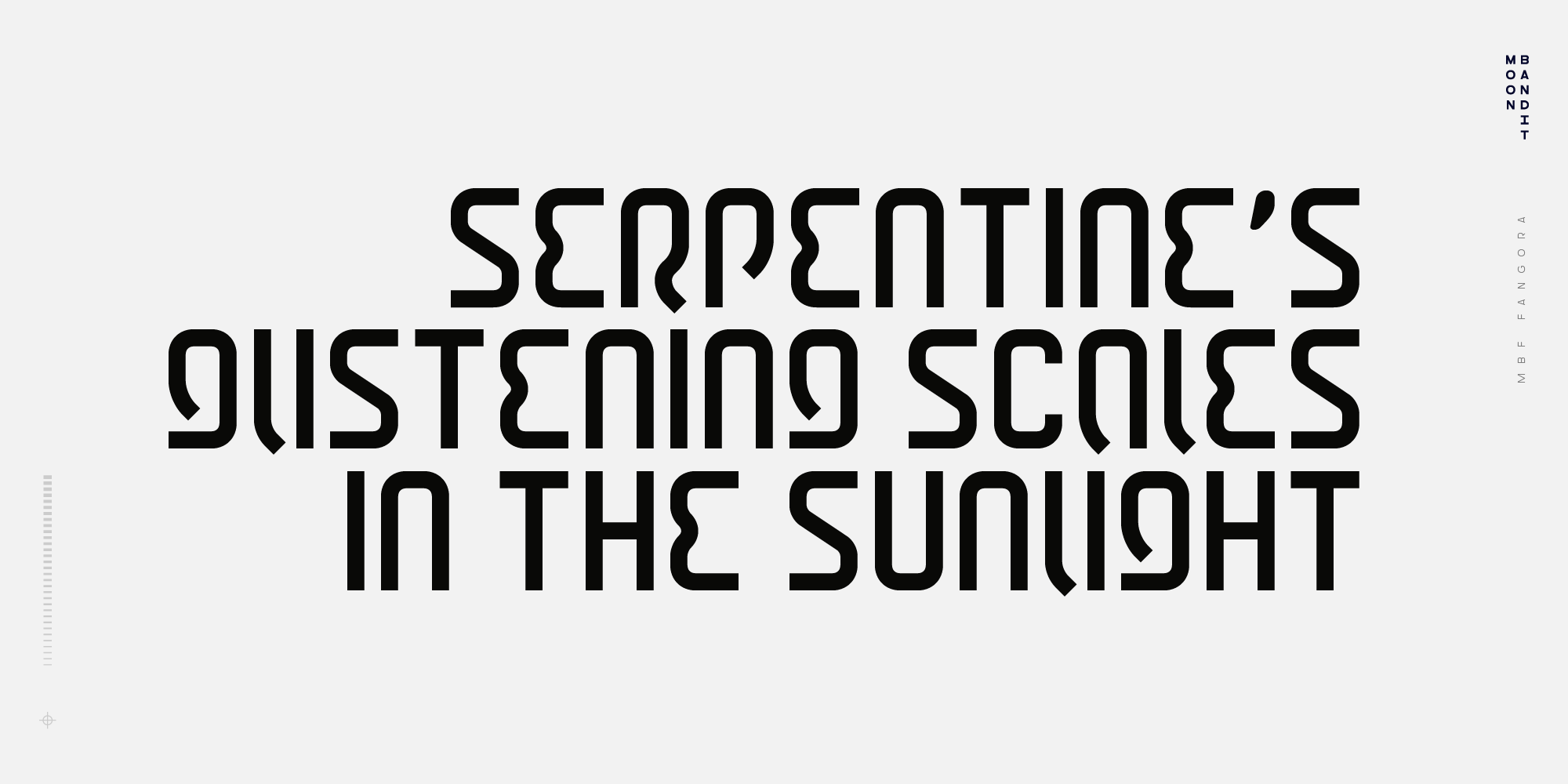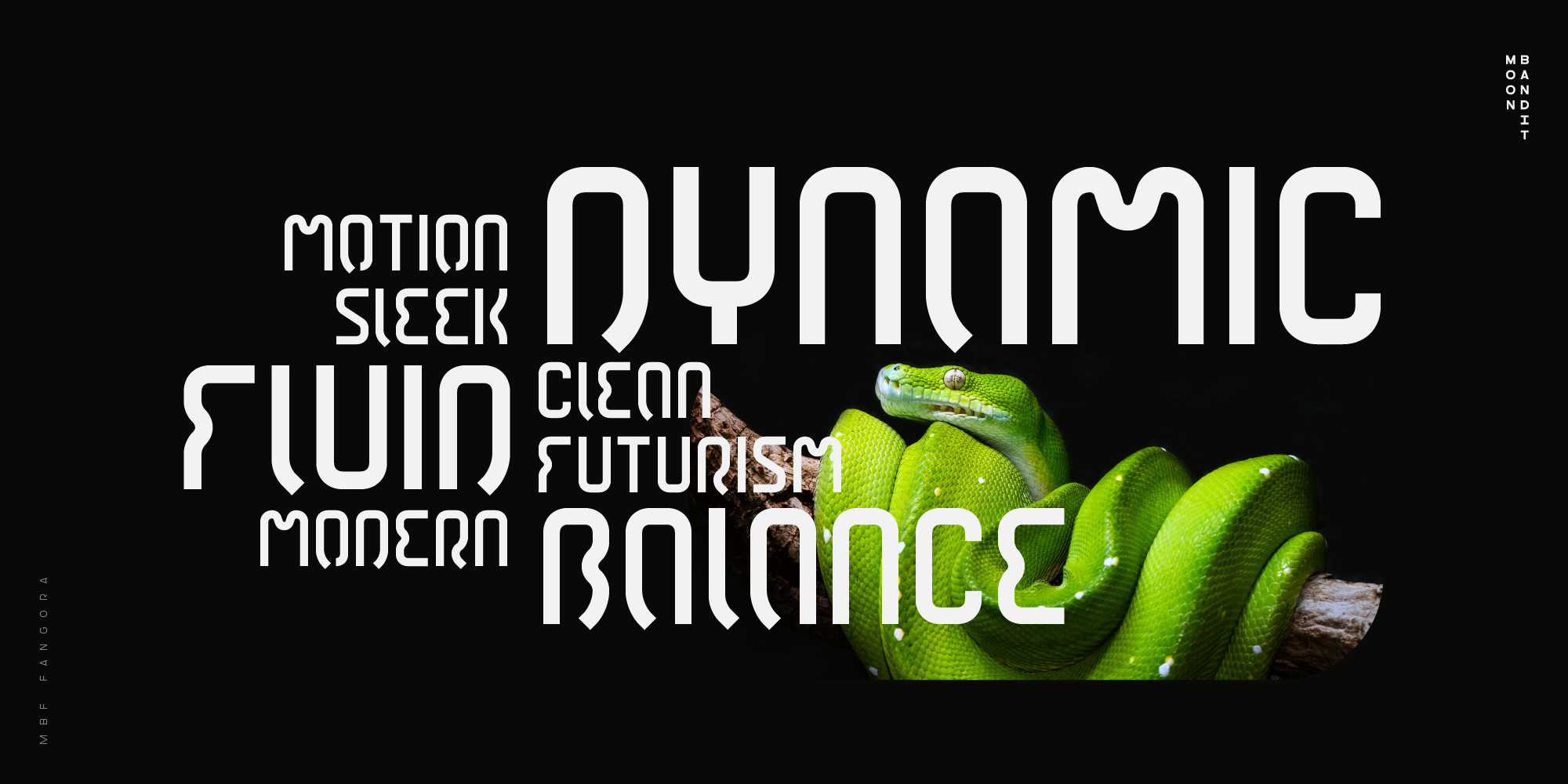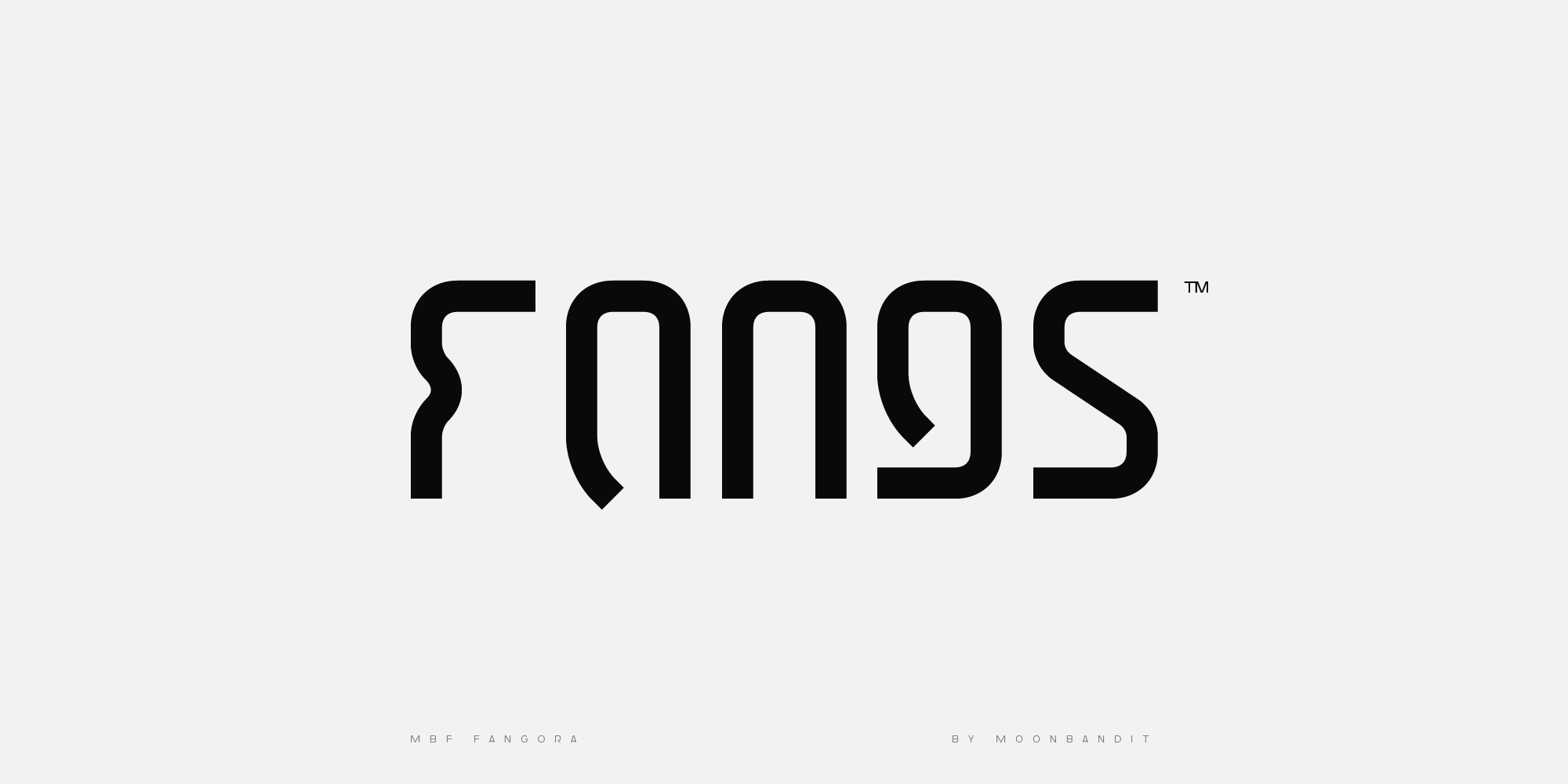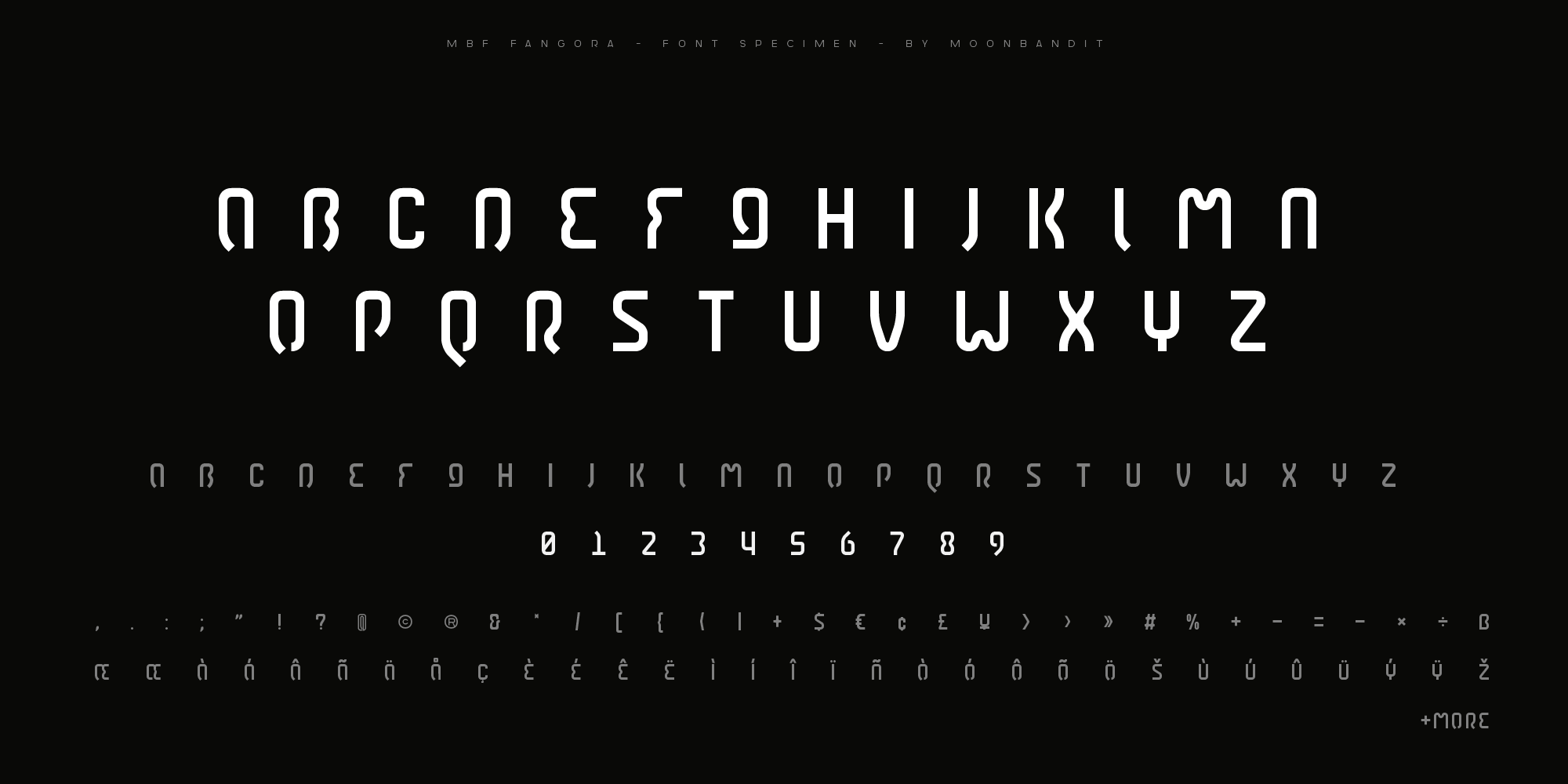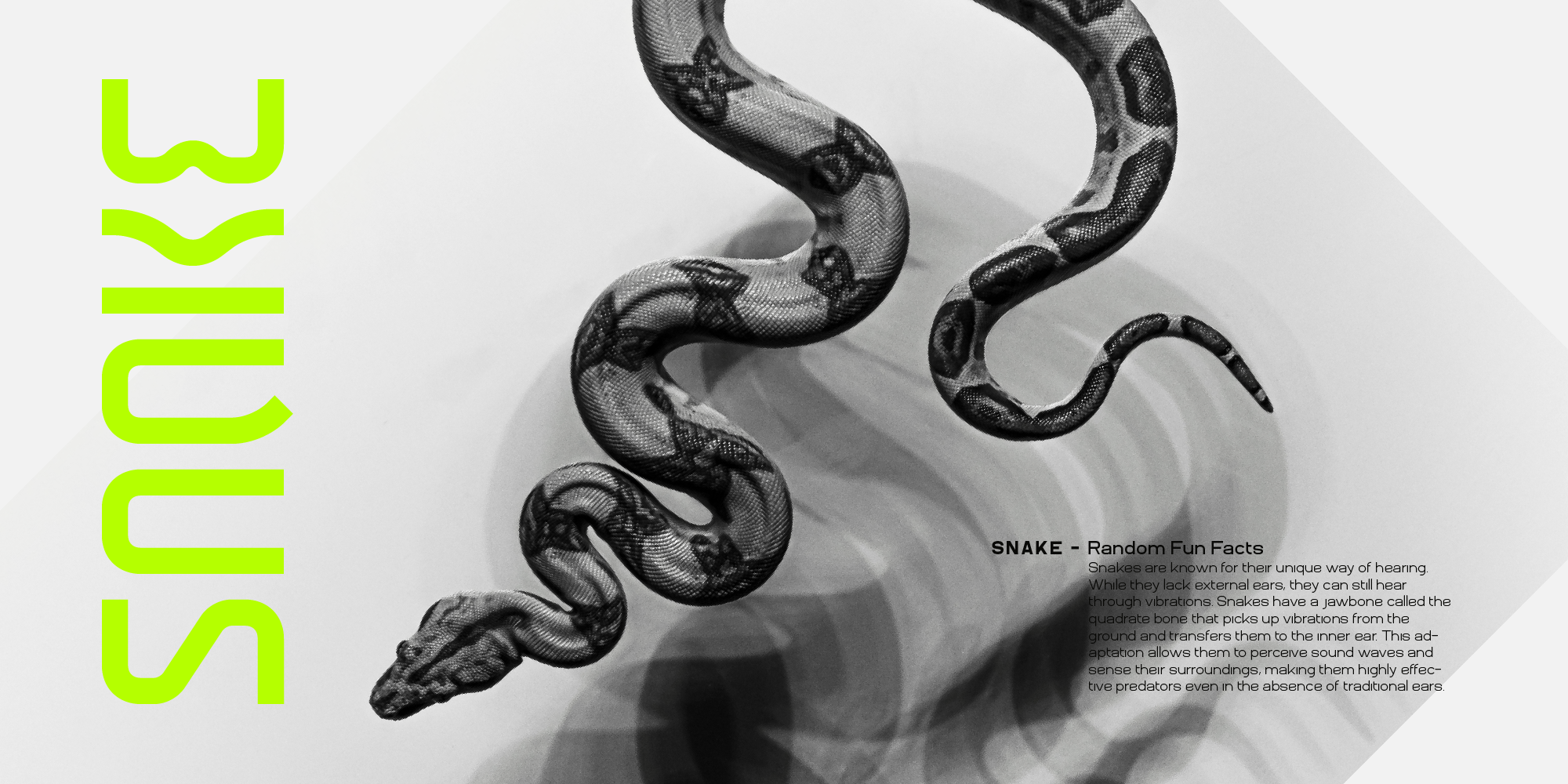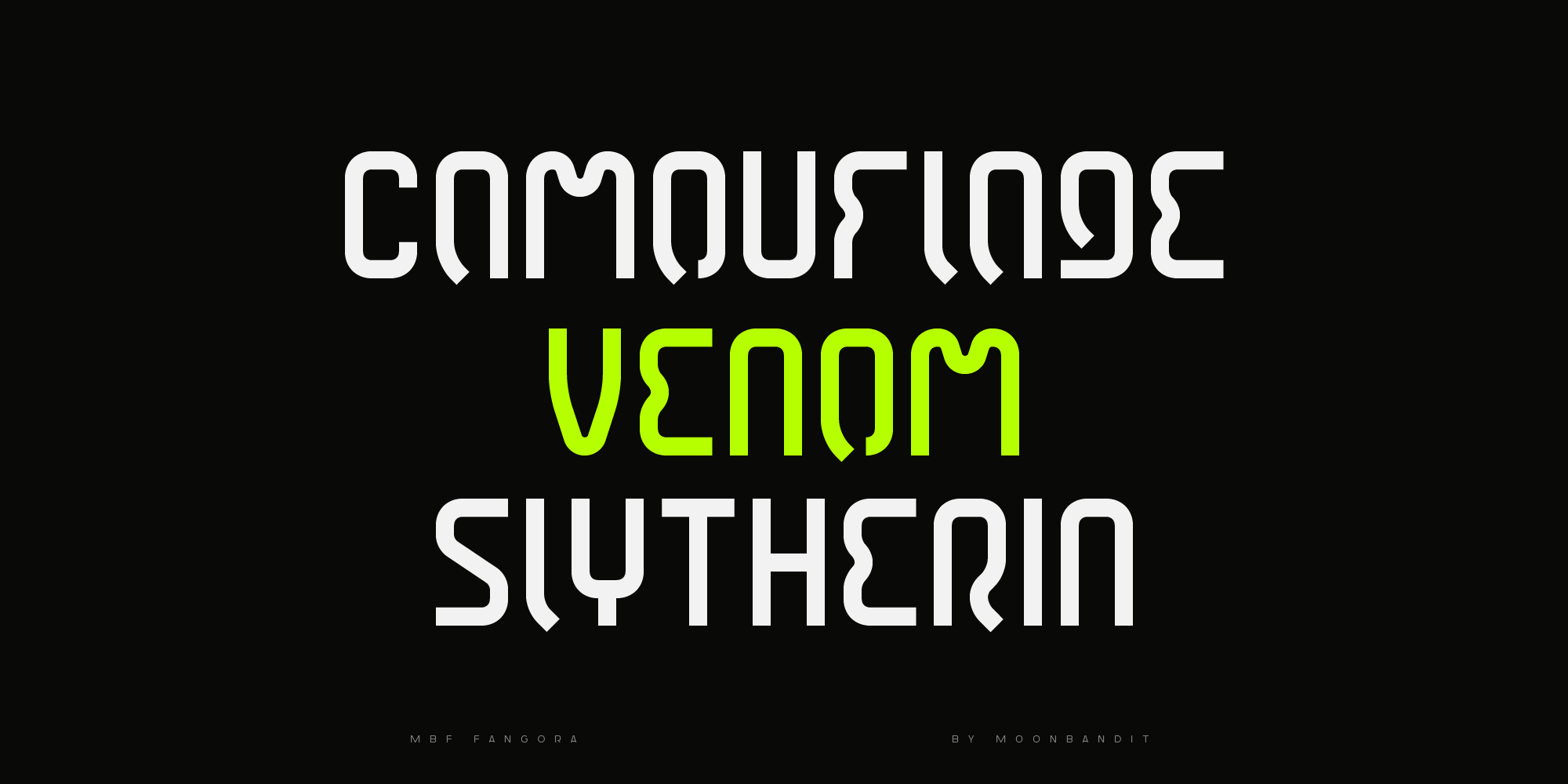
MBF Fangora
VENOMOUS SUBSTANCE OFTEN COMES FROM A BRIGHT COLORED BEING
Inspired by the dynamic movement of a snake, MBF Fangora is a cutting-edge sans-serif font that captures the sinuous flow and energy of a serpent. With its distinctive wavy form, this font adds a touch of fluidity and intrigue to your designs, striking the perfect balance between modern minimalism and the captivating essence of motion. MBF Fangora’s clean and sleek look allows you to elevate your projects with dynamic grace, ensuring every curve embodies fluidity and sophistication.